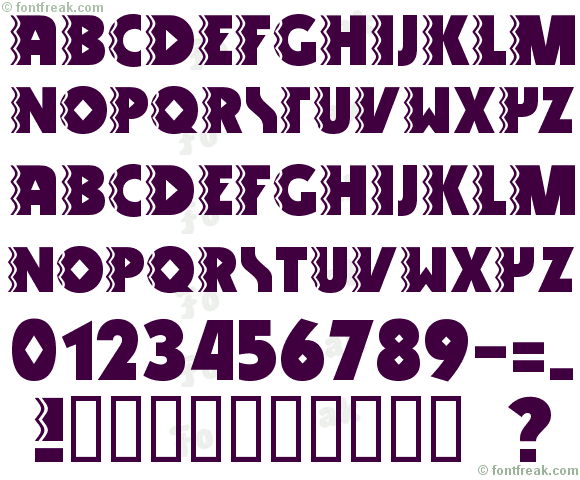
Snake Venom
The Snake Venom font by Levi is a striking display typeface that captures attention with its unique and quirky design. As a decorative font, it features bold, exaggerated letterforms that embody a playful yet edgy aesthetic. The strokes of the font showcase a varied weight, giving it a dynamic visual appeal, while the creative curves and angular features mimic the fluidity and unpredictability of snake movements. This design cleverly incorporates elements reminiscent of serpents, with undulating lines and distinctive shapes that create a sense of movement.
Ideal for various applications, the Snake Venom font excels in contexts where a bold statement is needed. It is perfect for movie posters, especially those in the horror or adventure genres, where it can evoke a sense of danger and excitement. Additionally, the font works well for branding in niche markets such as tattoo shops or wildlife-themed businesses, providing a memorable visual identity. It also lends itself to creative projects like album covers or merchandise designs that require an edgy and distinctive typeface. Graphic designers and content creators will find this font particularly useful for social media graphics or promotional materials that aim to stand out.
The target audience for the Snake Venom font includes graphic designers, small business owners, and anyone seeking to make a bold impression with their typography. Its freeware license makes it accessible for a wide range of users, allowing for creative freedom without the constraints of licensing fees. The Snake Venom font stands out due to its distinctive character and versatility, making it a fantastic choice for anyone looking to add a touch of personality and flair to their projects. Don't miss out on the opportunity to enhance your designs with the Snake Venom font free download.